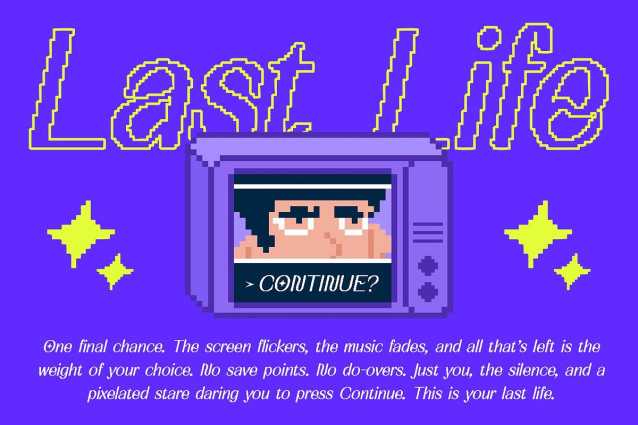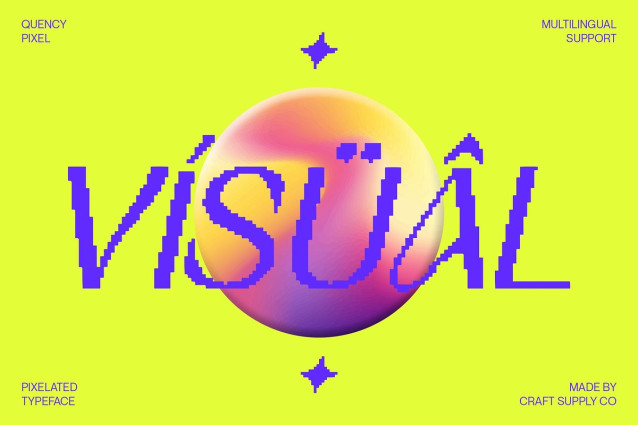
Quency Pixel Font
Quency Pixel Font is a modern sans serif font that combines clean geometric construction with a dose of quirky originality. Its unusual yet readable letterforms inject personality into the minimalist framework, giving it a fresh and stylish tone.
Digital Edge with Pixelated Texture What sets Quency Pixel apart is its pixel effect overlay, which adds a textured, digital aesthetic to each character. This subtle distortion introduces a sense of futurism, experimentation, and tech-inspired design, perfect for projects that live at the intersection of art and innovation. The pixelation softens the rigidity of modern forms and introduces a glitchy, handcrafted charm.
Minimalism with a Playful Twist Despite its decorative digital texture, the font retains a refined elegance through its balanced proportions and clear readability. This makes it a great choice for designers who want to explore creative experimentation without compromising on clarity or sophistication. The unusual letterforms add an offbeat yet curated vibe, ideal for trend-forward designs.
Perfect for Bold and Modern Visual Statements Quency Pixel is ideal for editorial titles, digital art, web design, experimental branding, or tech-forward visuals that aim to be unconventional and visually distinctive. Whether you’re building a futuristic aesthetic or injecting a digital twist into a clean layout, this font delivers a unique blend of structure, style, and pixel-inspired innovation.